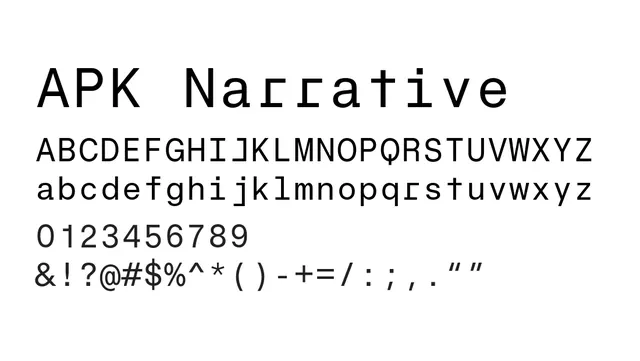
APK Narrative
APK Narrative, technical, modern
A proportional monospaced typeface with narrative character, blending code functionality with enhanced readability for editorial and technical contexts.
Suitable for technical writing that needs to retain monospace properties while offering improved readability. Works well in code-heavy editorial layouts and documentation where aesthetics matter as much as function.
Pairs effectively with APK Protocol for headlines in technical publications or with serif fonts for mixed editorial content.